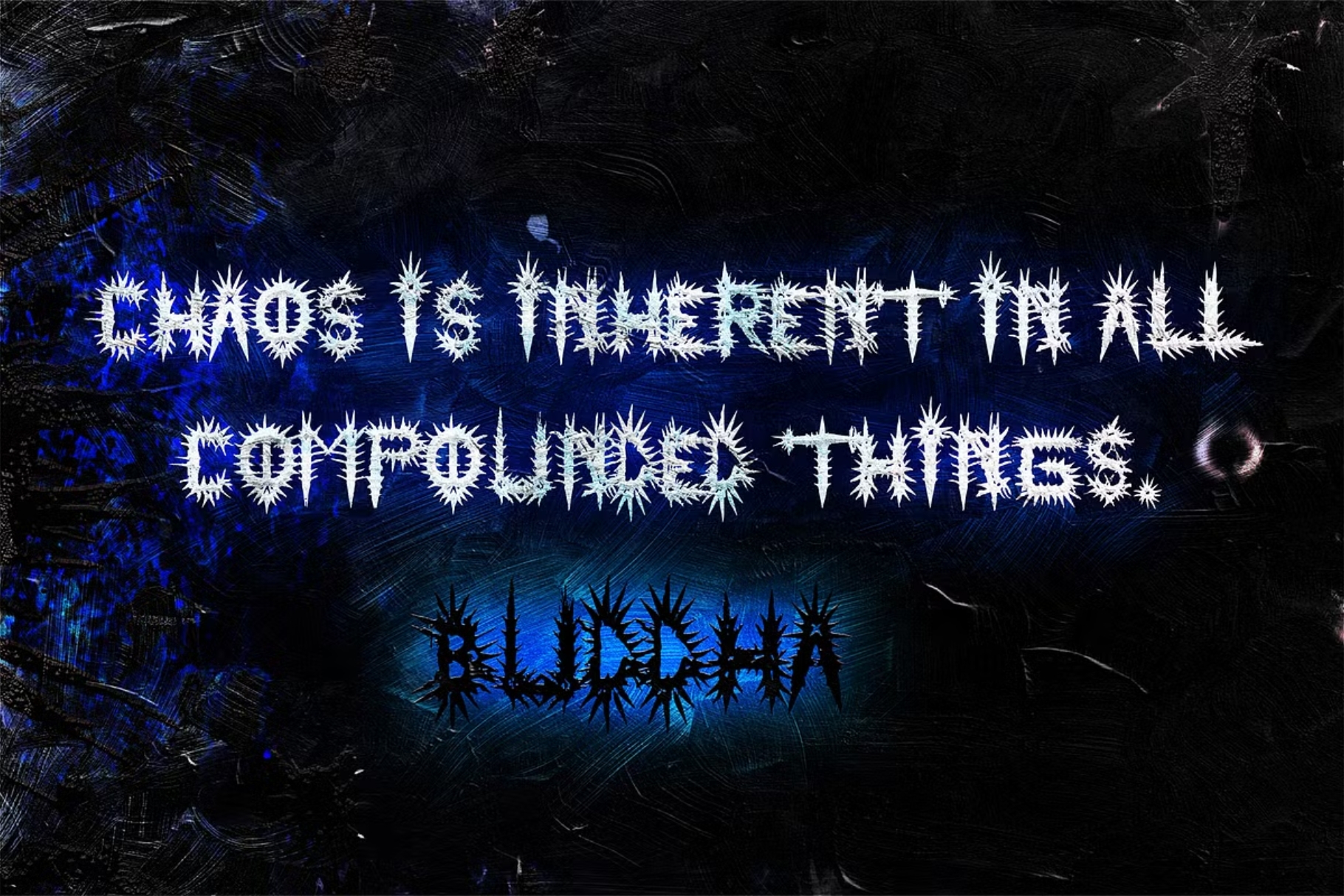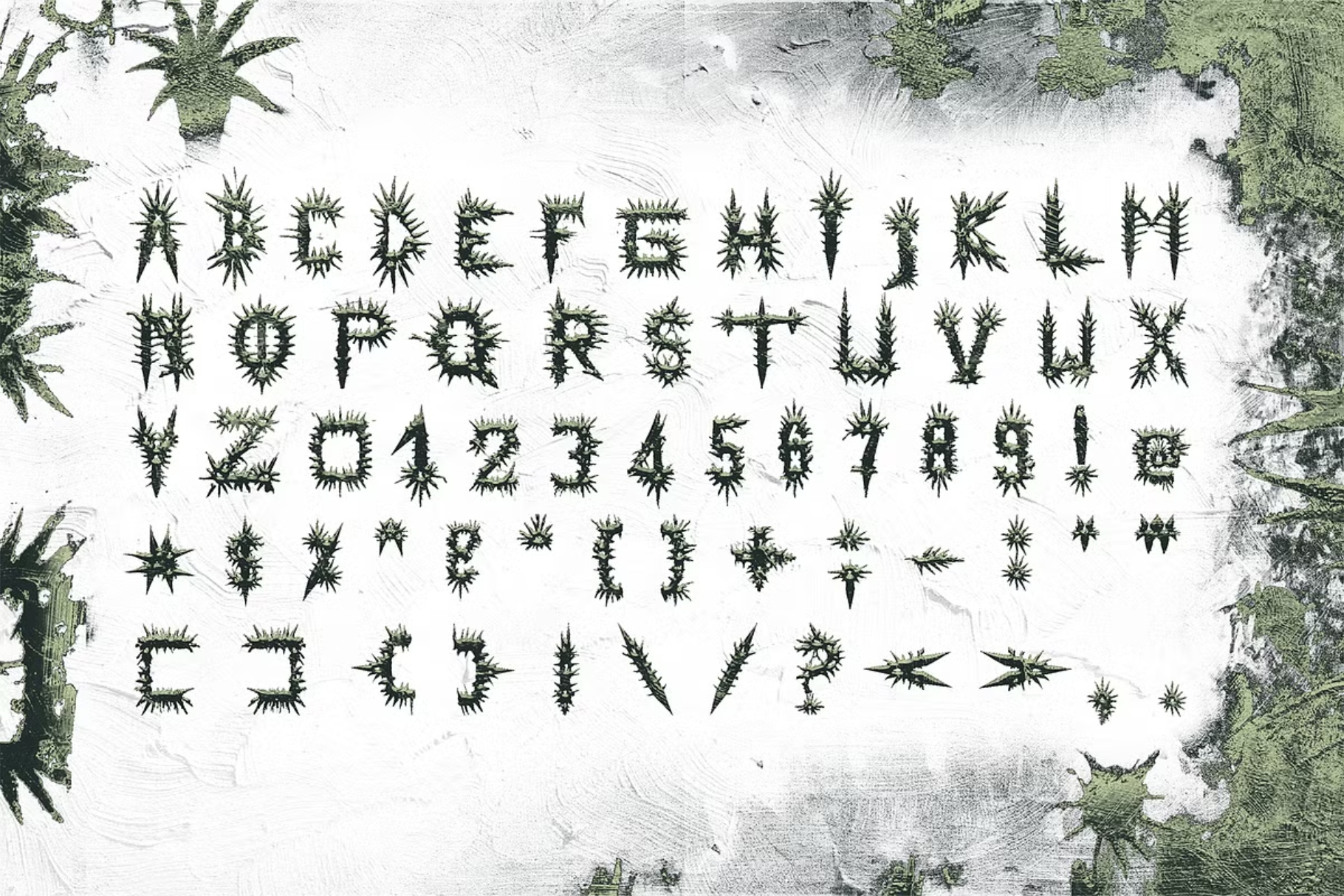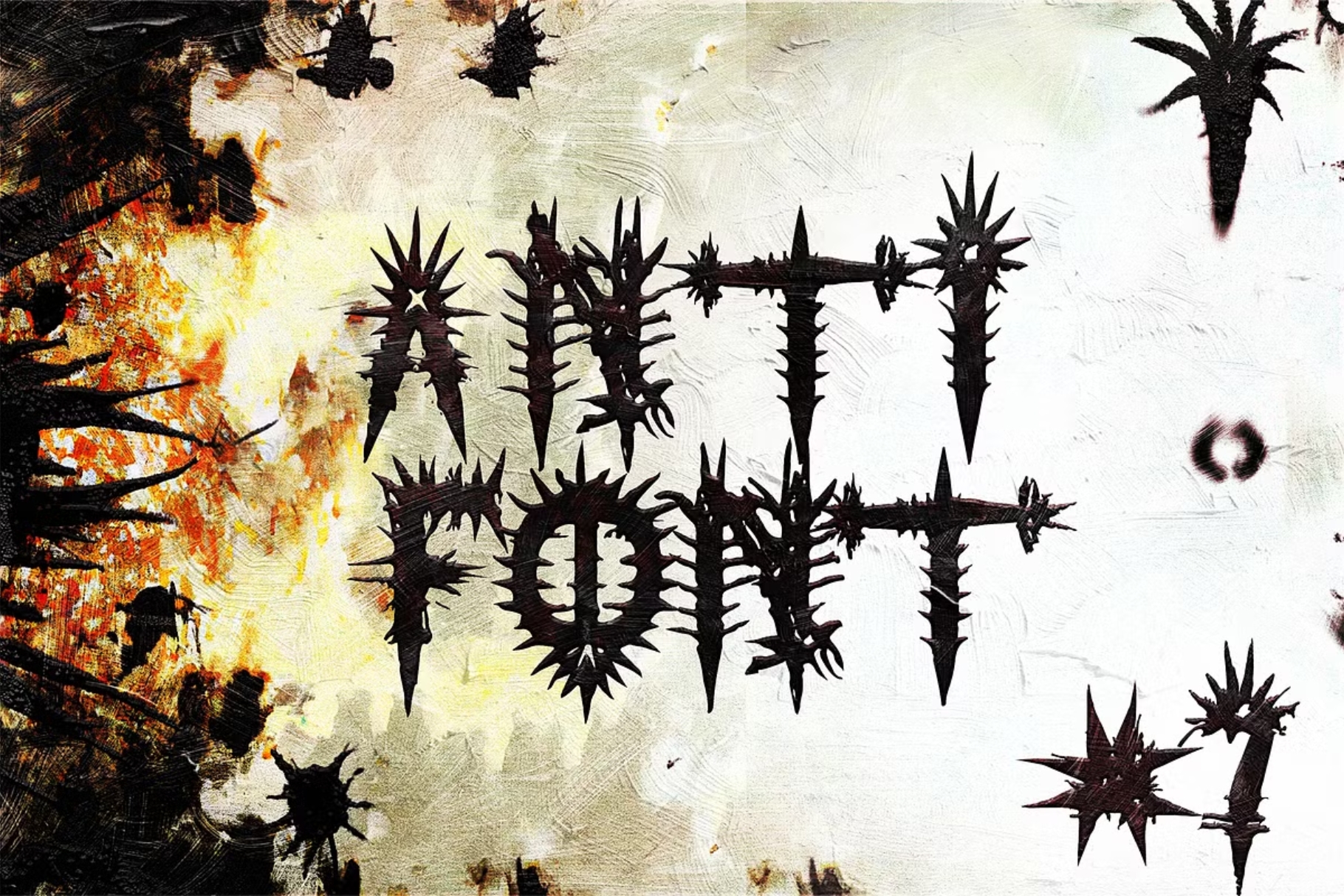
Step into the avant-garde world of punk street aesthetics with Anti-Font #7, the latest and most striking font in our Anti-Design Series. Inspired by the chaotic and spiky energy of the late 20th-century punk movement, this font is designed to make a bold statement.
- Unique Design: Mesmerizing and disturbing, Anti-Font #7 captures the essence of the anti-design movement with messy, irregular lines and jagged edges.
- Attention-grabbing: Perfect for headlines and eye-catching designs, this font will ensure your message stands out.
- Versatile Enhancements: Use shadows and embossed effects to add depth and dimension, making your text pop even more.